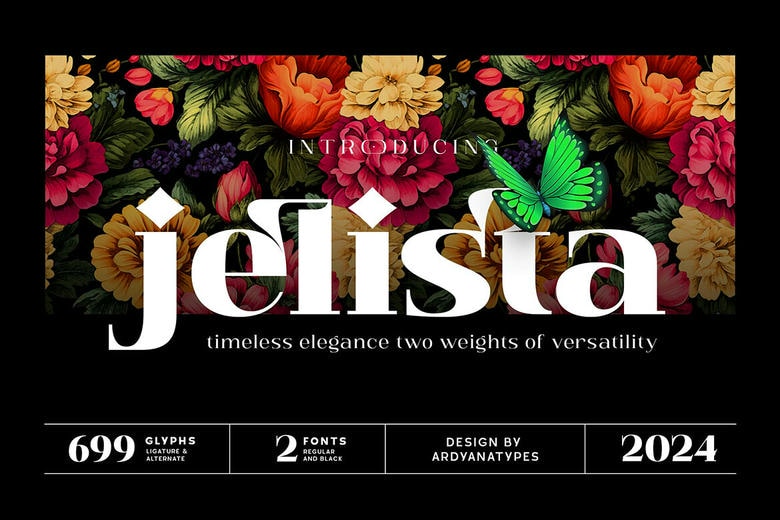
Jelista Font
Jelista is a serif font that exudes a unique character and captivating visual strength. Inspired by the distinctiveness of classic letterforms with a modern touch, Jelista features bold yet elegant curves, creating a balance between power and grace.
Jelista Serif Font